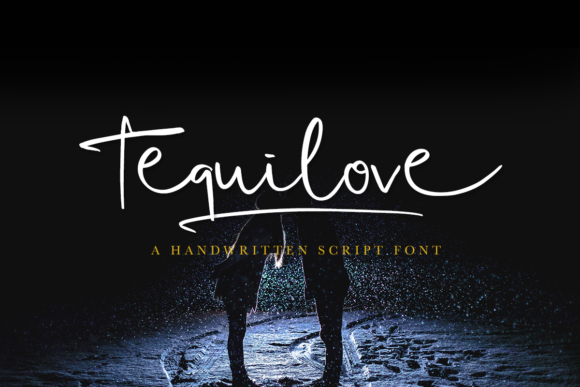
Dive into the world of Tequilove, an extraordinary script font family that exudes casual flair and modern grace. Crafted by the skilled artisans at Scratch Design, this font is a visual symphony of handwritten elegance, ready to transform your creative projects into masterpieces.
With Tequilove, you'll embark on a journey of artistic exploration, where every letter is a stroke of genius. Its free-flowing curves and delicate swashes evoke a sense of effortless beauty, making it the perfect choice for adding a touch of sophistication to your designs.
As you immerse yourself in the Tequilove experience, you'll discover a font that dances across the page with a lively rhythm, capturing the essence of joyous celebration. Whether gracing wedding invitations, branding projects, or heartfelt personal messages, Tequilove adds a layer of charm and personality that is simply irresistible.
Unleash your creativity and let Tequilove guide you to new heights of design excellence. Its versatility knows no bounds, allowing you to craft stunning logos, eye-catching social media posts, or heartfelt greeting cards that leave a lasting impression.
Embark on this creative odyssey with Tequilove, and discover a font that not only captivates the eye but also stirs the soul. Let its beauty inspire your next project and witness the transformation as your designs blossom into works of art.